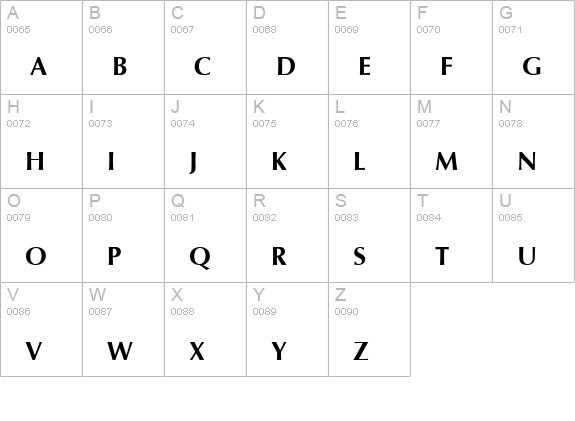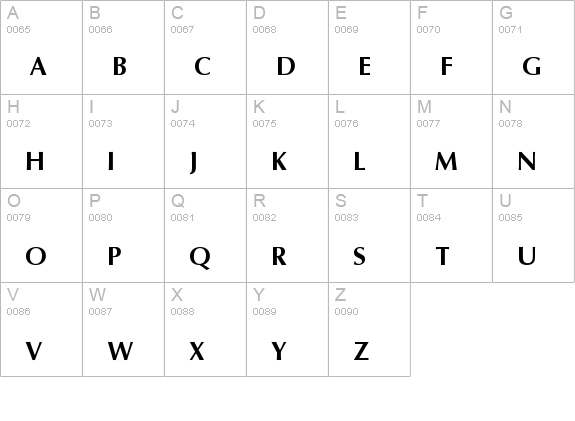
IrisUPC Bold Font Details
IrisUPC Bold is a strong, high-contrast variant in the IrisUPC typeface family \xE2\x80\x94 well suited to headlines, attention-grabbing titles, and strong calls-to-action.
Introducing IrisUPC Bold, a striking and commanding font that exudes confidence and sophistication. Its bold and sturdy letterforms make a powerful statement, capturing attention and leaving a lasting impression. Whether used for headlines, titles, or any design project that requires a touch of strength and elegance, IrisUPC Bold delivers with its impeccable style and readability. This versatile typeface boasts a perfect balance between timeless appeal and contemporary design. Its carefully crafted curves and sharp edges provide a harmonious blend of classic elegance and modern aesthetics. With its bold weight, IrisUPC Bold is ideal for emphasizing important information, ensuring that your message stands out and commands attention. But what makes IrisUPC Bold even more enticing is that it is available for free! Yes, you read that right – this remarkable font can be freely downloaded at FontsMarket.com. No need to worry about breaking the bank or sacrificing quality. With IrisUPC Bold, you can have both style and affordability, making it an excellent choice for designers, creatives, and anyone who appreciates the beauty of typography. So why wait? Take advantage of this incredible opportunity to enhance your designs with the bold elegance of IrisUPC Bold. Download it for free at FontsMarket.com and unleash your creativity with a font that effortlessly captivates and inspires.